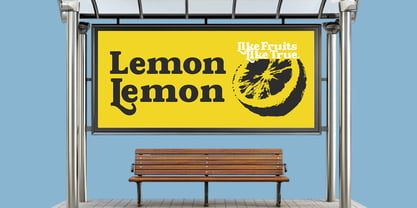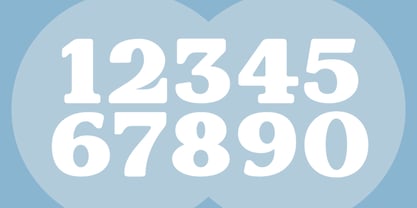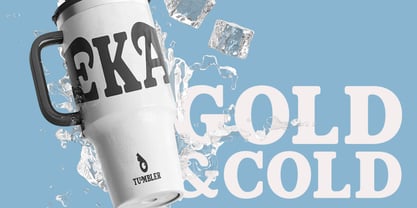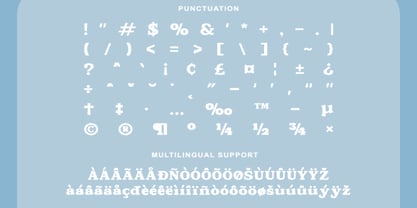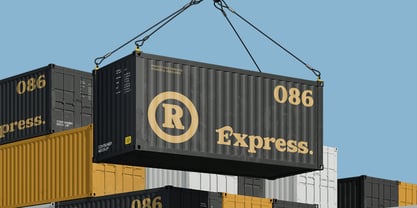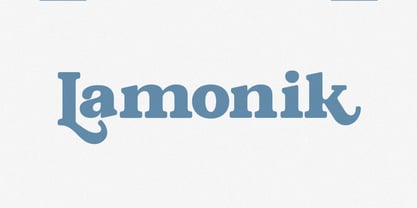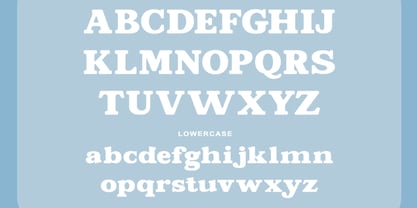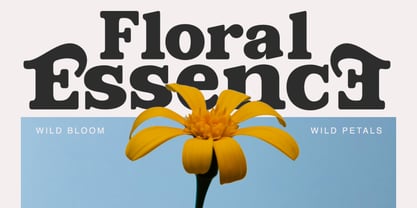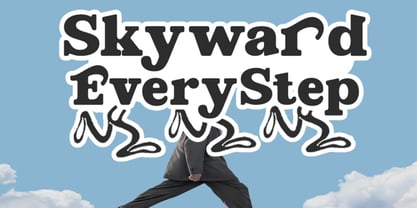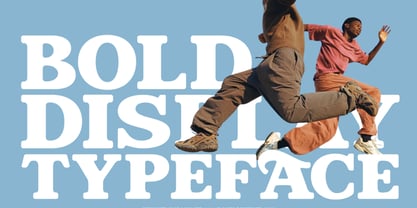
Lamonik
Die Schriftfamilie Lamonik wurde von Fajar Indra entworfen und von Rasio Studio veröffentlicht. Lamonik enthält 1 Stile. Mehr über diese Familie
Lamonik is a bold and expressive display serif typeface that blends classic charm with contemporary edge. With its high contrast, flared serifs, and distinctive vintage touches, Lamonik offers a striking balance between elegance and readability. This font includes full uppercase and lowercase sets, numerals, and multilingual support, making it versatile for editorial layouts, product packaging, logo headlines, and creative branding. Lamonik is highly suitable for designers working on high-end branding, editorial design, or nostalgic packaging. Its classic serif form with modern tweaks makes it relevant for fashion lookbooks, magazine titles, restaurant menus, or logo designs that aim for elegance with a touch of boldness.